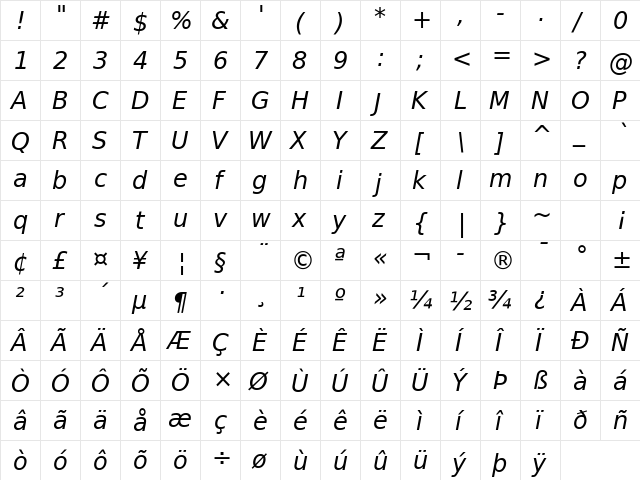
Bepa Oblique
| Foundry | Bitstream Inc. |
Design Context for Bepa Typeface
Bepa takes a measured approach to typography — its balanced proportions and neutral character make it a reliable workhorse for both digital and print work. The dynamic lean of this cut emphasises speed and emphasis in any layout.
Pro Tip: Try Bepa for annotation and caption copy alongside an upright companion — the contrast in angle creates a dynamic but ordered typographic system.